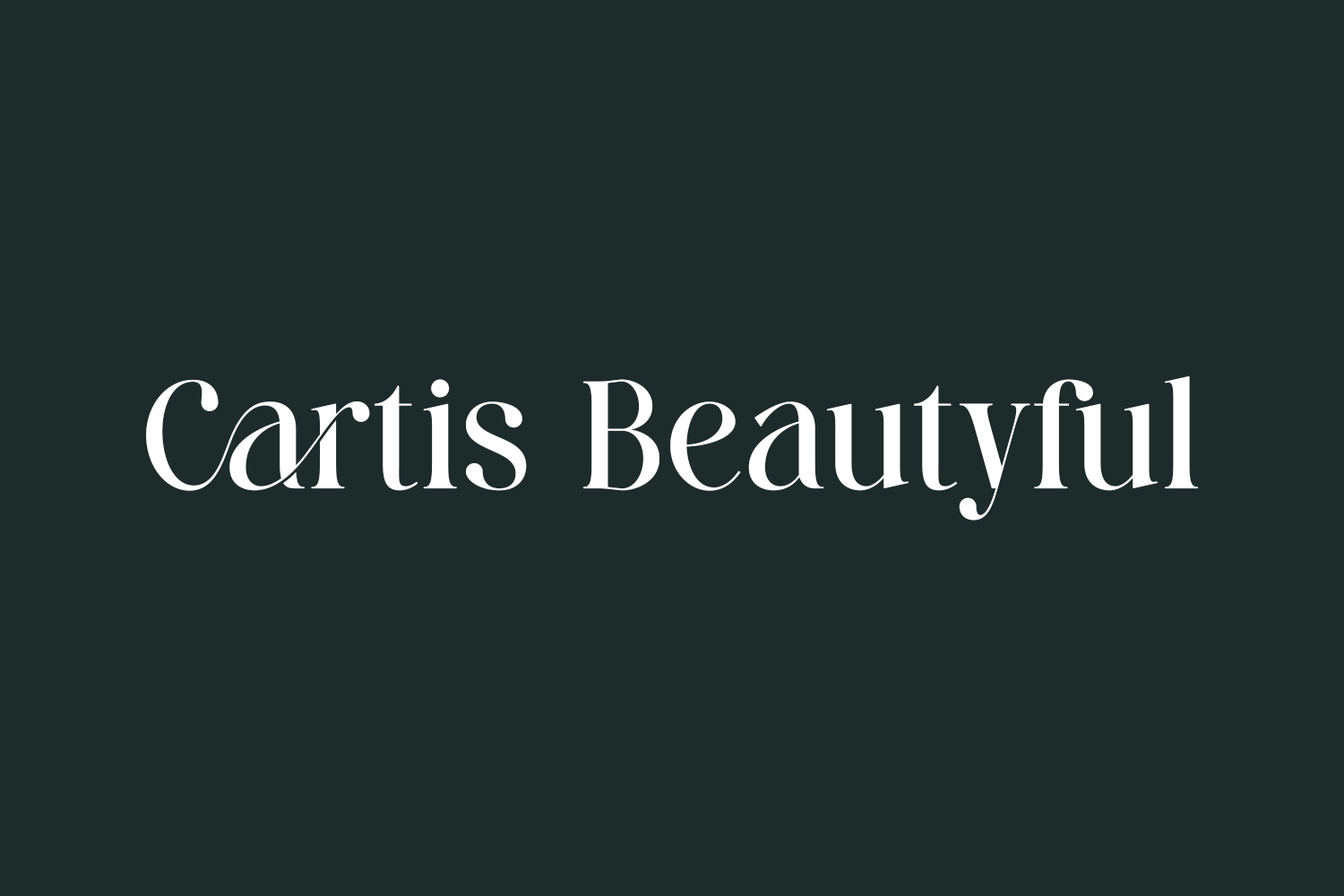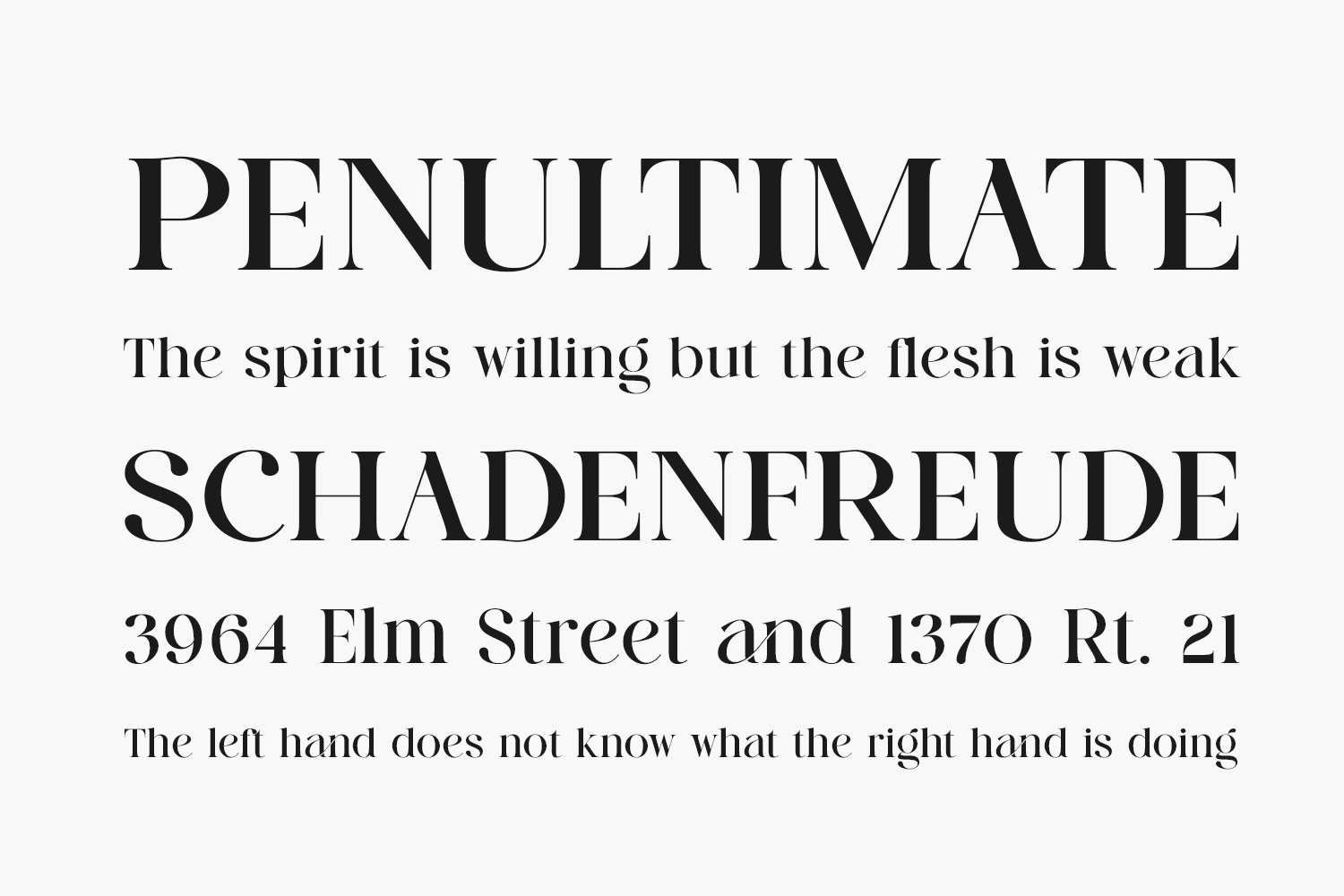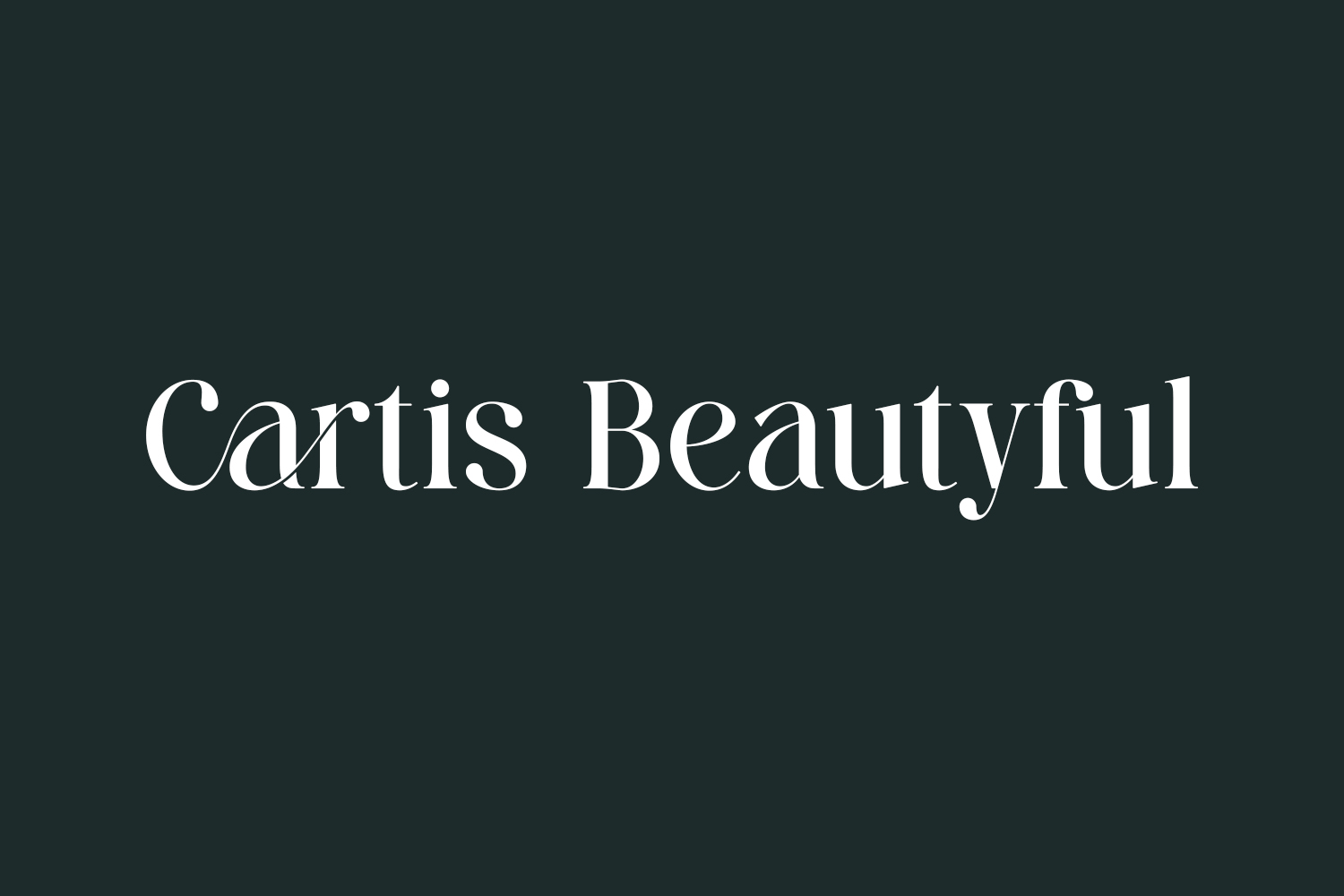
Cartis Beautyful Free Font is a stunning serif signature font with graceful lines and refined curves. Its characters are beautifully crafted to evoke a sense of timeless elegance and sophistication. Perfect for use in luxury branding, high-end invitations, and any project that requires a touch of class and charm, the Cartis Beautyful Free Font will elevate your designs to new heights.